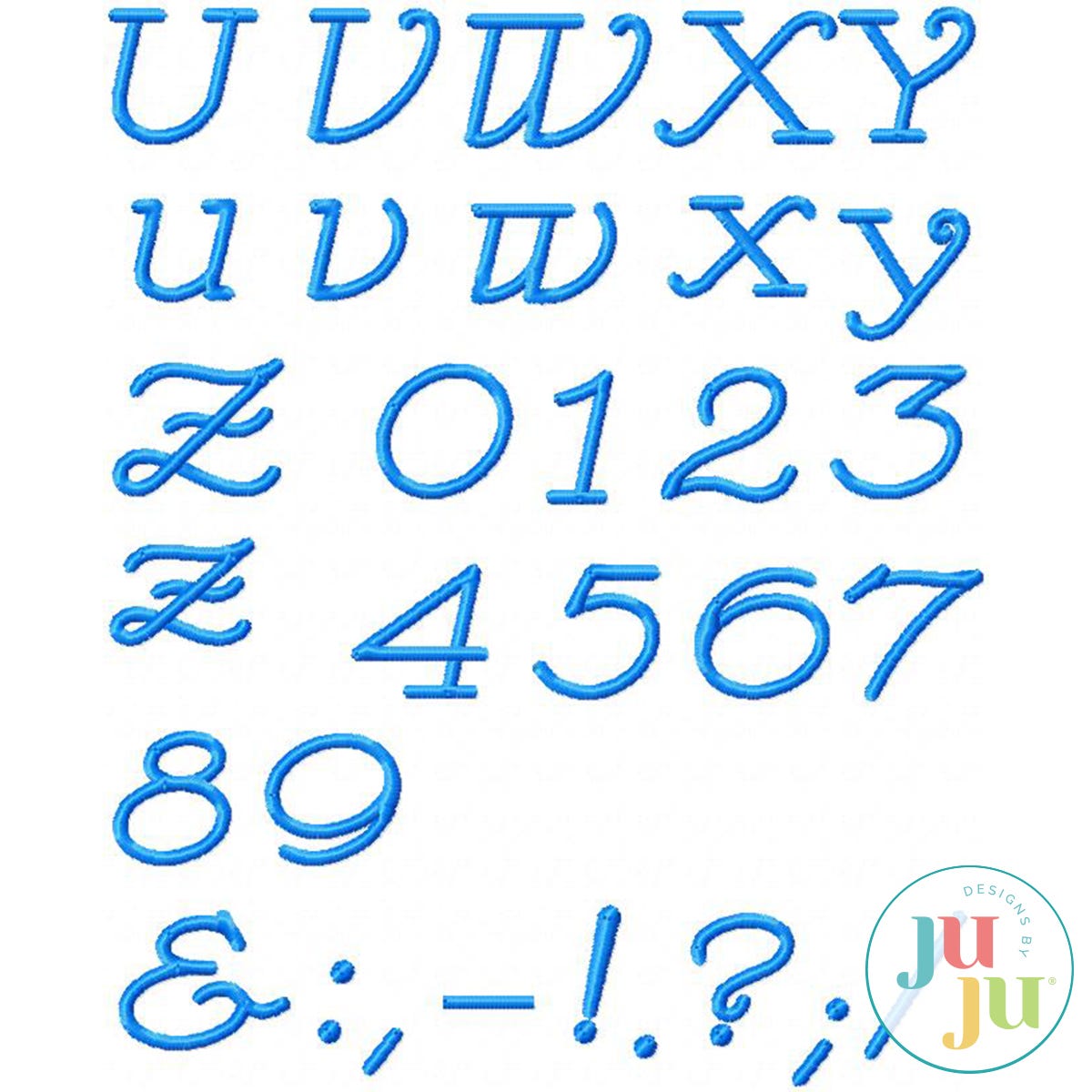
Bravado Satin Stitch Embroidery Font by Oma's Place
Bravado is a clear, clean cut font that is equally suitable for adult or child. With just a little bit of whimsy and easy readability it will soon become a favorite font of yours. Comes with bx font for Embrilliance users.
Approx. height of letters: 1"